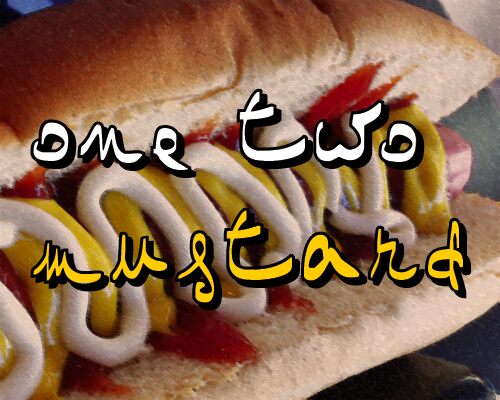
One Two Mustard is a bold, playful handwritten font that exudes a quirky charm. The uneven strokes and whimsical letterforms suggest a sense of spontaneity, making it an ideal choice for design projects seeking a casual, expressive aesthetic. Its unique character shines through in the distinctive flourishes and variations across each letter, lending the font a distinct personality.
This font's versatility extends across various applications, from eye-catching headlines and titles to organic-feeling branding and packaging designs. Its lively, hand-drawn appearance can bring a touch of personality to creative endeavors, whether in the realms of print, digital, or even product design. One Two Mustard's distinctive flair is sure to captivate and engage audiences, making it a compelling option for designers seeking to infuse their work with a sense of playfulness and authenticity.
It's like haikus - they don't always make sense. Why should this name be the exception? One, two, mustard, yeah!
One Two Mustard Hot